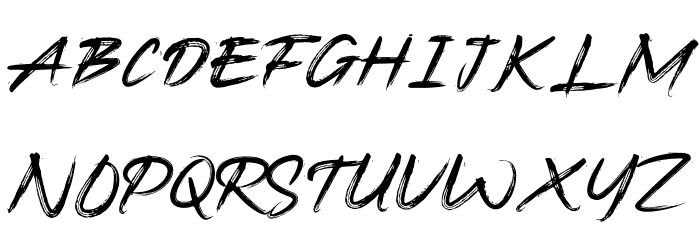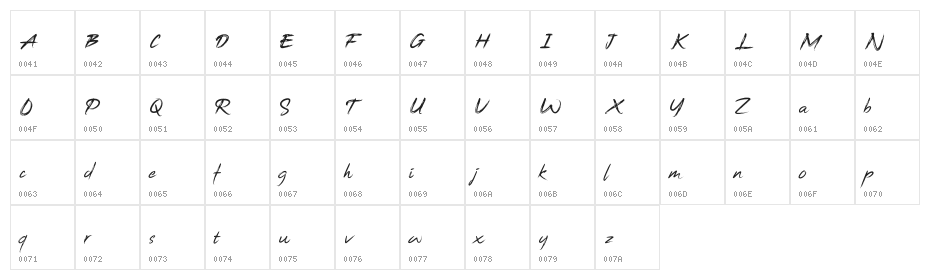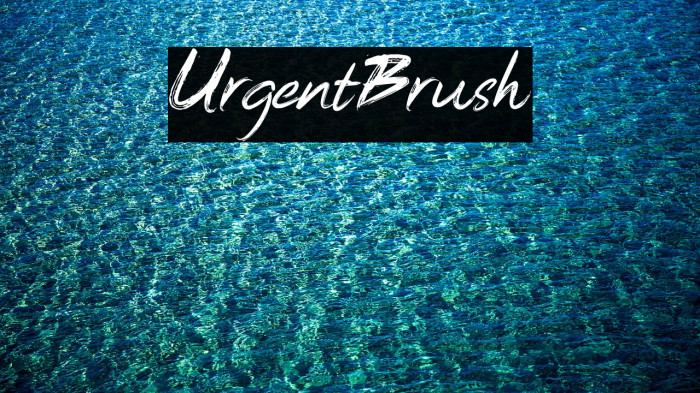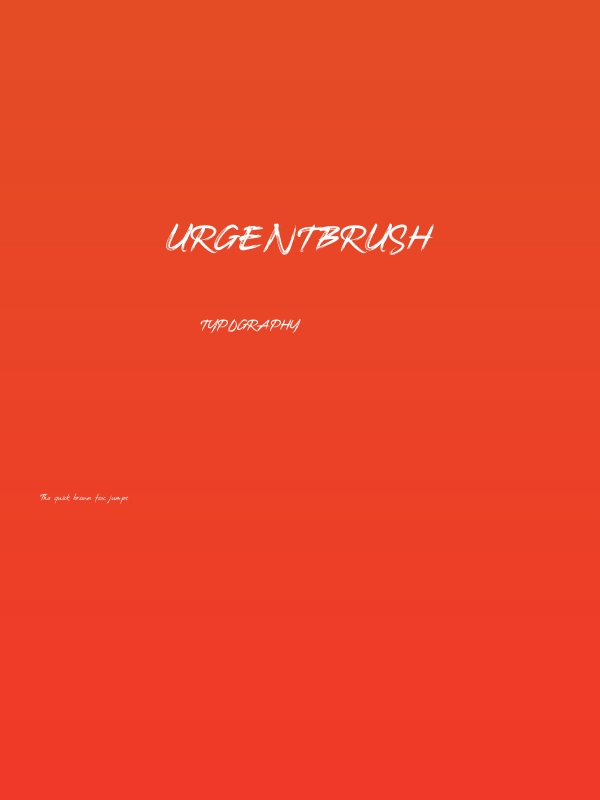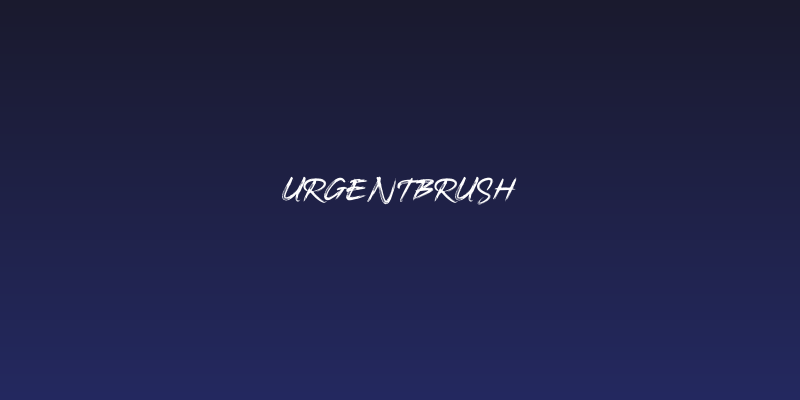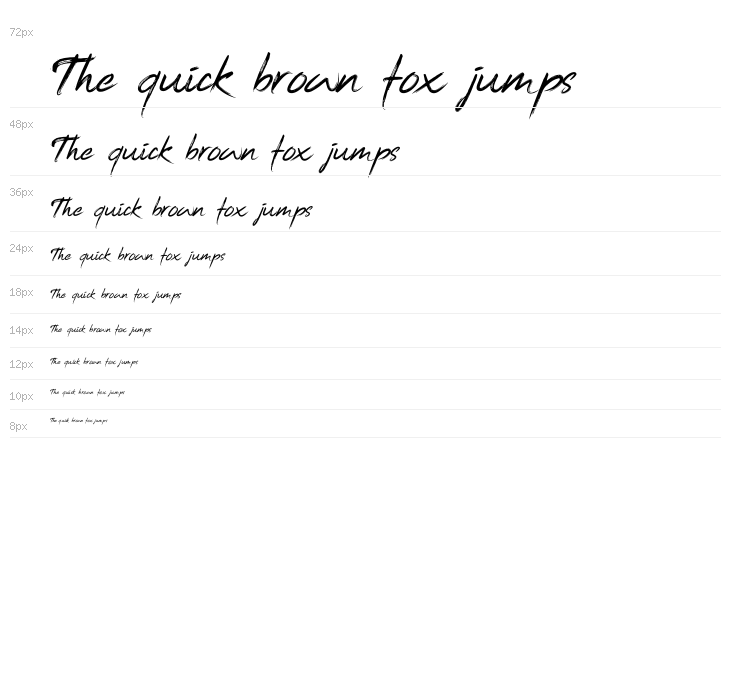
UrgentBrush Font
UrgentBrush Description
This font features a dynamic and expressive brush style, characterized by its bold and energetic strokes. The letters have a hand-painted appearance, with varying thickness that adds a sense of movement and spontaneity. The uppercase letters are particularly striking, with sweeping lines and sharp angles that convey a sense of urgency and flair. The lowercase letters maintain a consistent style, complementing the uppercase with a slightly more restrained yet still lively form. This font's unique texture and artistic flair make it ideal for projects that require a personal touch or a bold statement.